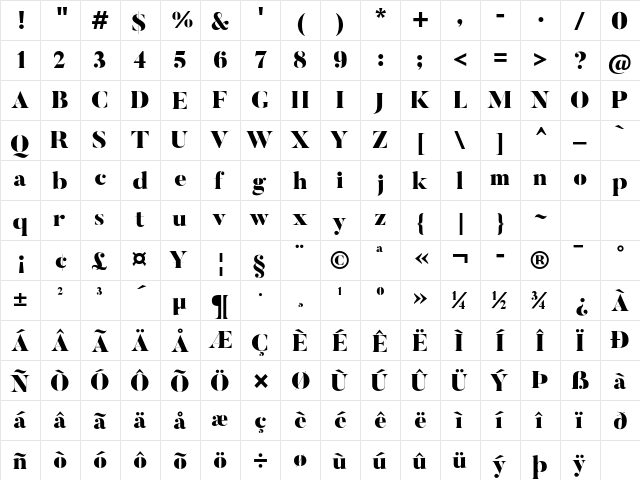
Butler Black Font Preview
Butler Black
Butler Black Font Details
| Designer | Fabian De Smet |
Design Context for Butler Typeface
Butler takes a measured approach to typography — its balanced proportions and neutral character make it a reliable workhorse for both digital and print work.